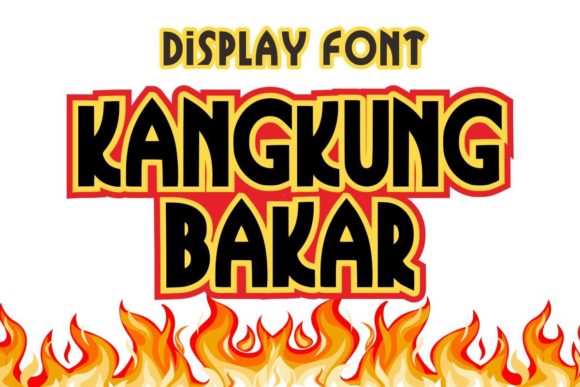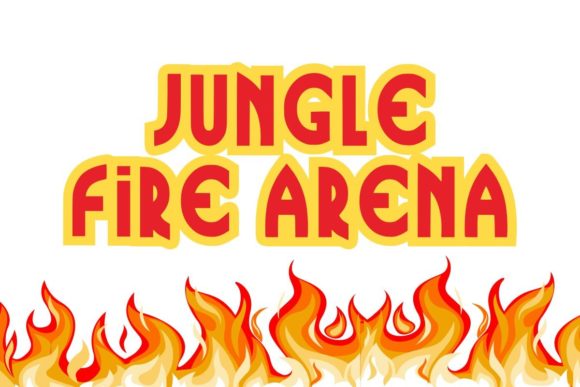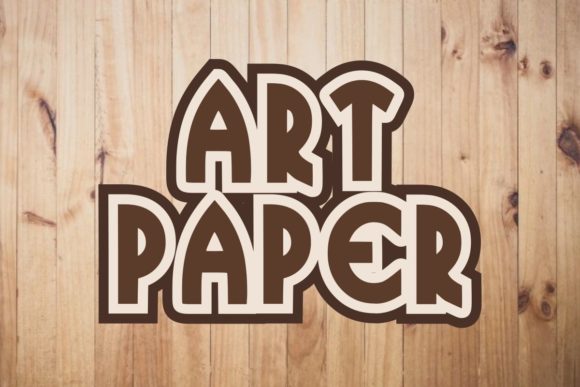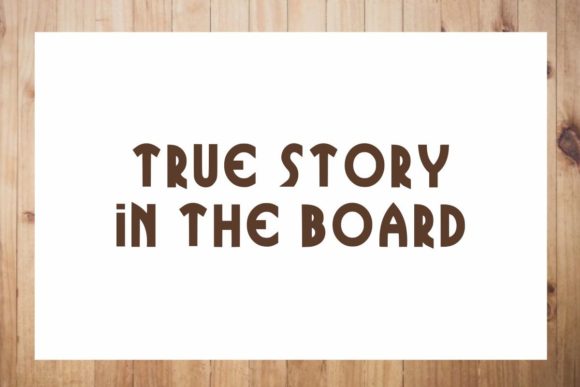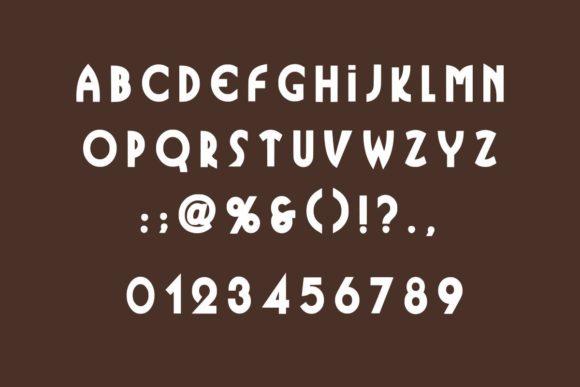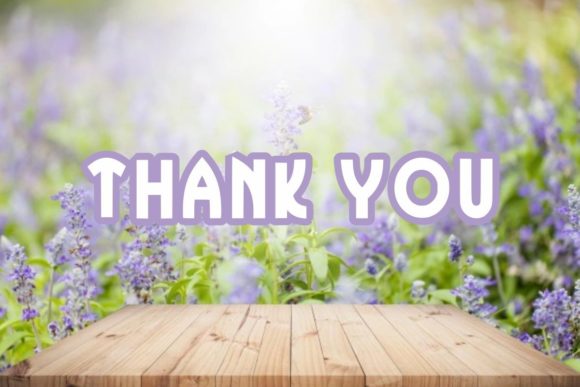
Introduction to Kangkung Bakar Font
Kangkung Bakar a vintage and cool display font.
Whether youโ€™re using it for crafts, digital design, presentations, or greeting cards, this font has the potential to become your favorite go-to font, no matter the occasion .
Key Features of Kangkung Bakar Font
Why Choose Kangkung Bakar Font?
Kangkung Bakar Font offers exceptional quality and versatility, making it a valuable addition to your design toolkit. Whether you’re creating for personal projects or commercial use, Kangkung Bakar Font delivers professional results.